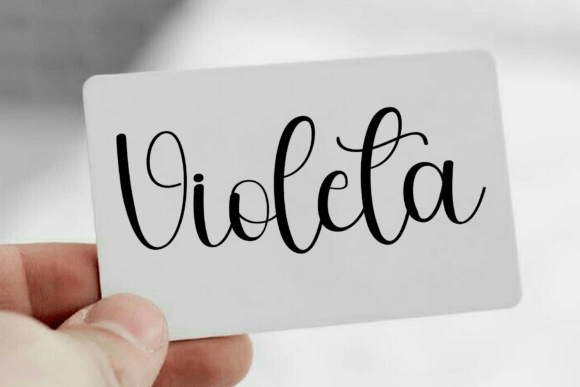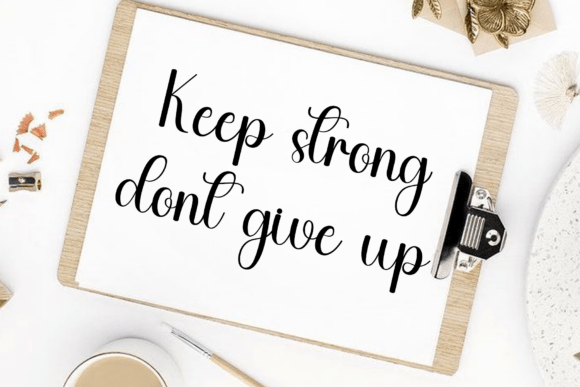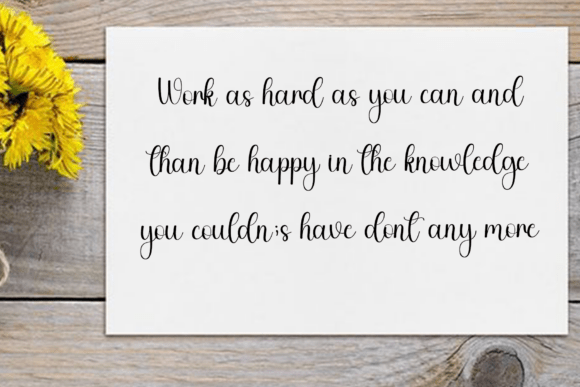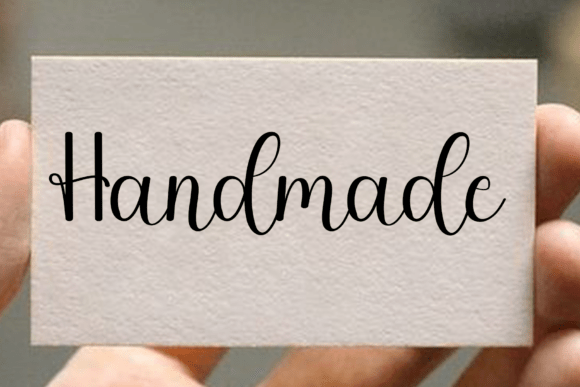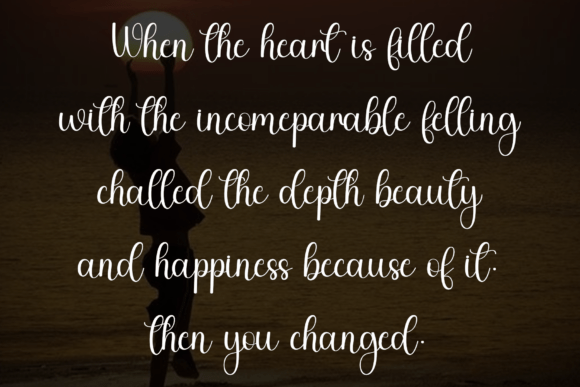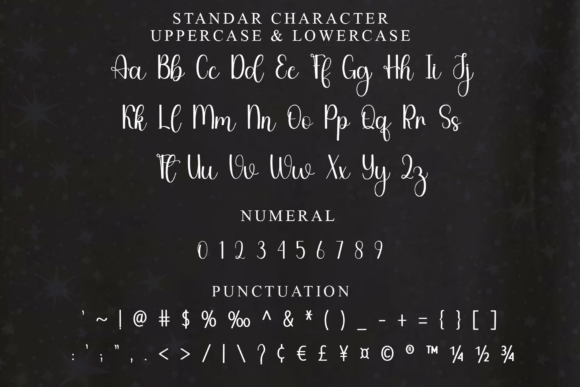
The Magic of Franchie Font: Elevate Your Holiday Designs
A Festive Favorite: Franchie Font Review
Franchie Font is a true gem in the world of typography, designed to bring a touch of enchantment to your holiday designs. Here’s what I love about it:
- ✨ Festive and merry vibe that’s perfect for the holiday season
- ✅ Whimsical flair and decorative elements that add a touch of magic to your designs
- 🎉 PUA encoded for easy access to amazing glyphs and ligatures
- 📚 Versatile and suitable for various design projects, from greeting cards to gift tags
While Franchie Font is a delightful addition to any design project, there are a few minor quirks to be aware of:
- 🤔 Limited use outside of holiday-themed projects, as its festive vibe might not fit other design contexts
- ⚠️ May require some exploration to get familiar with the various glyphs and ligatures
The Story Behind Franchie Font
Franchie Font was inspired by the nostalgic and magical atmosphere of the holiday season. Its creator aimed to craft a font that would evoke the feeling of snowflakes gently falling, hot cocoa warming your hands, and the sound of carolers singing in harmony. The result is a font that’s both festive and elegant, perfect for adding a touch of enchantment to your designs.